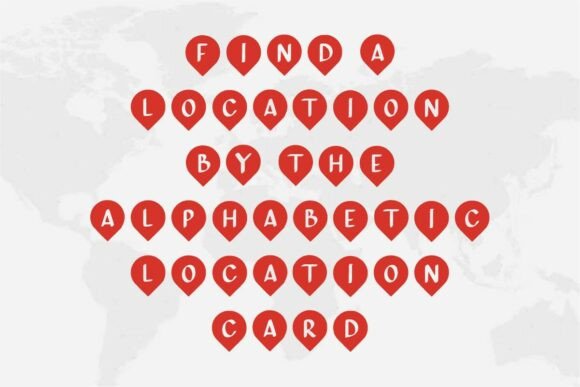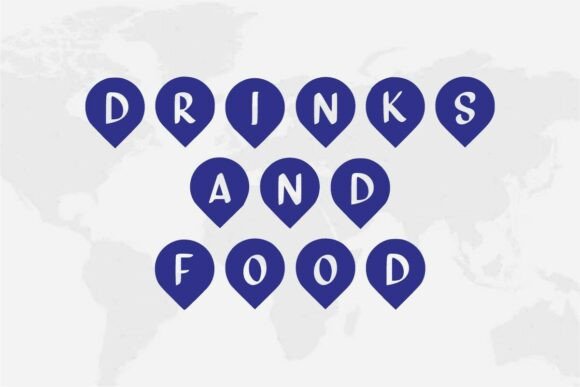
Introduction to Location Creative Font
Do you remember that moment when you’re brainstorming ideas for a new project and suddenly a spark of creativity hits you? You envision the perfect font that captures the essence of your concept, and you can’t wait to bring it to life. If you’re a designer, you know the importance of finding the right font to elevate your creative project. That’s where the Location Creative Font comes in – a display font that uses location codes to identify places, making it easy to find them.
With its location style and casual feel, the Location Creative Font is a perfect choice for any design that requires a relaxed touch. Whether you’re creating business location names, products, invitations, quotes, or logos, this font is sure to add a unique and creative touch. Plus, it’s available for free download, making it an excellent design resource for designers on a budget. Its high quality and transparent background make it a valuable addition to any design project.
Key Features of Location Creative Font
- High-quality design resource ideal for creative projects, including maps, travel, and adventure themes.
- Unique and creative font with a transparent background, allowing for seamless integration with background images and graphics.
- Designed to add a touch of elegance and sophistication to any creative project, making it perfect for use in branding, marketing, and editorial designs.
- Comes with a range of glyphs and characters, including letters, numbers, and symbols, making it a versatile design resource.
Honest Review: Location Creative Font
I recently came across the Location Creative Font, a versatile and high-quality design resource perfect for any creative project. Upon initial use, I was impressed by its clean and modern aesthetic.
- ✨ The font’s transparent background makes it easy to layer and customize in any design application.
- ✨ The high-quality vector design ensures crisp and clear results, even at larger font sizes.
- ✨ The font’s wide range of glyphs and characters makes it ideal for various creative projects, from logos to infographics.
However, I did encounter a few limitations during my review process.
Overall, I’m impressed with the Location Creative Font’s design quality and versatility. While it may have some limitations, it’s an excellent choice for designers looking for a high-quality design resource for their creative projects.
Location Creative Font
Location Creative Font is ideal for creative projects, such as travel brochures, maps, and infographics. It is also perfect for professional projects, such as presentations, reports, and documents. The font’s high-quality design and transparent background make it a valuable design resource for anyone looking to create visually appealing designs.